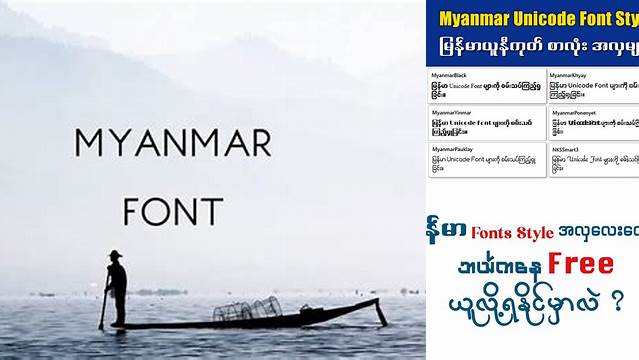
Hey guys! Are you looking to jazz up your documents or social media posts with some cool Myanmar fonts? You've come to the right place! This article is all about Myanmar font free download copy and paste, making it super easy for you to add a touch of Burmese flair to your digital creations. We'll dive into where you can find these fonts, how to download them, and, of course, how to copy and paste them seamlessly. So, grab a cup of coffee, sit back, and let's get started on this font-tastic journey! We'll cover everything from the basics of Myanmar script to practical tips for using these fonts on different platforms. Get ready to impress your friends and followers with your newfound Myanmar font skills! This is your one-stop shop for all things related to Myanmar fonts, ensuring you can find the perfect font to suit your needs. Whether you're creating presentations, designing graphics, or simply want to add a cultural touch to your communication, this guide will help you every step of the way. Let’s unlock the world of beautiful Burmese typography together!
H2: Understanding the Basics: What are Myanmar Fonts?
Alright, before we jump into the nitty-gritty of Myanmar font free download copy and paste, let's get acquainted with the basics. Myanmar fonts, also known as Burmese fonts, are specifically designed to render the complex characters of the Burmese script, also known as the Myanmar script, which is used to write the Burmese language, among others. These fonts differ significantly from Latin-based fonts because they need to accommodate the unique shapes and structures of Myanmar characters. The Burmese script is an abugida, meaning each consonant has an inherent vowel sound, and other vowel sounds are indicated by diacritics that are added around the consonant. This complexity necessitates specially designed fonts that accurately represent these characters without any rendering issues. When you're looking for Myanmar font free download copy and paste options, you're essentially searching for font files that have been meticulously crafted to display these characters correctly across various devices and software applications. A well-designed Myanmar font ensures that the text remains legible and visually appealing, maintaining the cultural integrity of the written language. These fonts are not just about aesthetics; they play a vital role in digital communication and cultural preservation. Without the right fonts, Burmese text might appear as a series of unintelligible boxes or incorrectly rendered characters. Therefore, finding a reliable source for Myanmar font free download copy and paste is crucial for anyone looking to communicate in Burmese or incorporate elements of the language into their digital content. Moreover, understanding the nuances of Myanmar fonts helps in choosing the right style for your project, whether it's a formal document or a creative design.
H3: Differences Between Myanmar Script and Other Scripts
Let's break down the differences between Myanmar script and other common scripts like Latin, Cyrillic, and Arabic. The key distinction lies in their structural composition. Latin scripts use individual letters that combine to form words, offering relative simplicity in font design. Cyrillic shares a similar structure but has its unique set of characters. Arabic employs a cursive style, where letters connect based on their position in a word, creating a flow that influences font design. The Myanmar font free download copy and paste process considers the intricate nature of the Burmese script, which, unlike these, is an abugida. This means each consonant has an inherent vowel, and additional vowel sounds are indicated by diacritics placed around the consonant. This arrangement demands fonts that accurately position these diacritics to ensure correct pronunciation and readability. The complexity of the Burmese script requires that fonts support stacked characters and complex ligatures, which are specific combinations of characters that render as a single glyph. For instance, the shape of a character in Burmese can change depending on its place within a syllable, influencing the overall look of the text. Understanding these differences is crucial when you're on the hunt for Myanmar font free download copy and paste resources. You can appreciate the design challenges and choose fonts that display Burmese characters correctly. Moreover, it informs your approach to selecting a suitable font style for your project, ensuring your text is both functional and aesthetically pleasing. This unique structure also sets Myanmar fonts apart in digital rendering, requiring specialized rendering engines that can handle the complexities of its characters. Consequently, when you download and use these fonts, you're tapping into a system that accurately represents the language and culture, a key factor in preserving the richness of the Burmese written tradition.